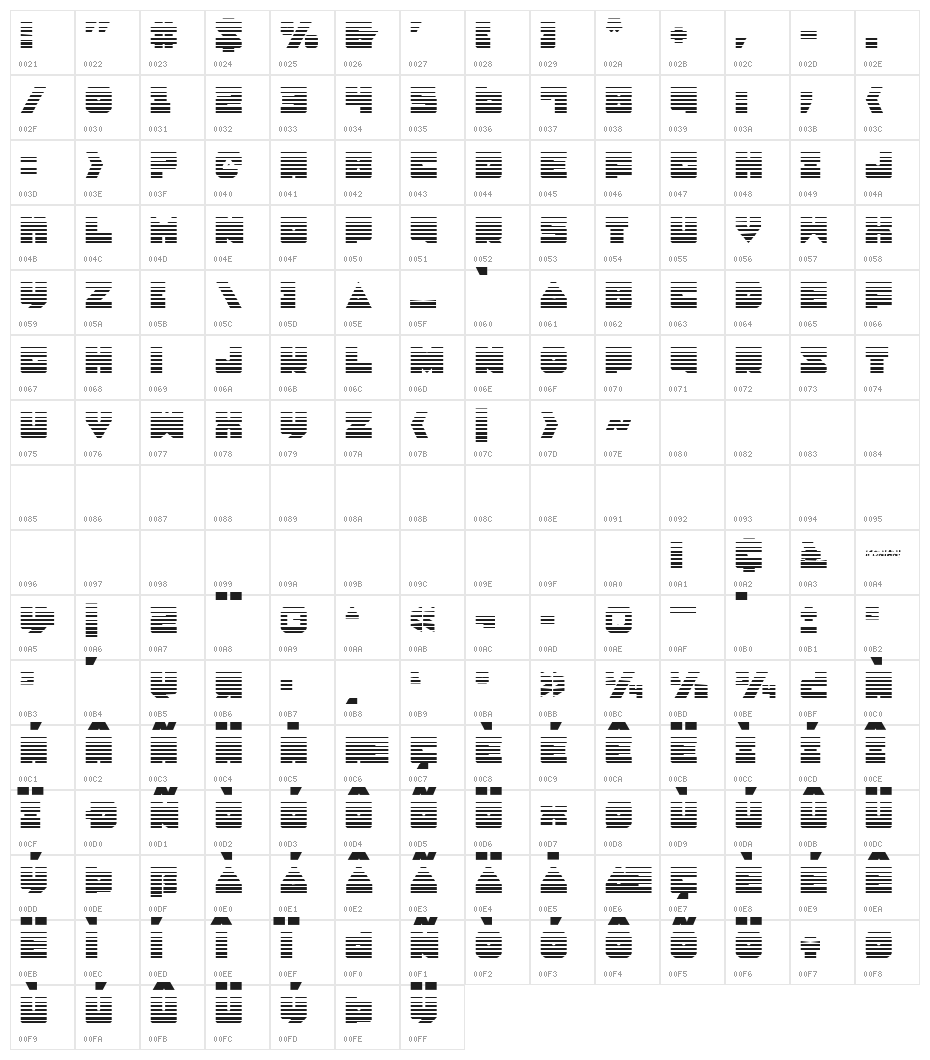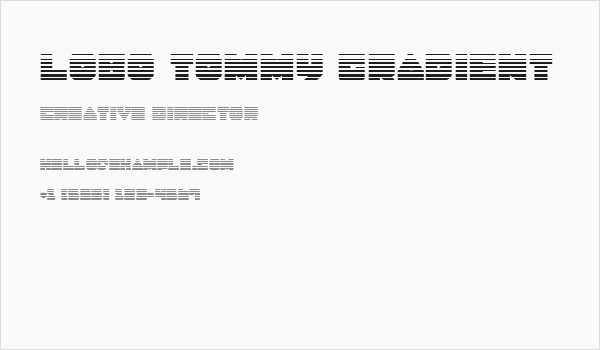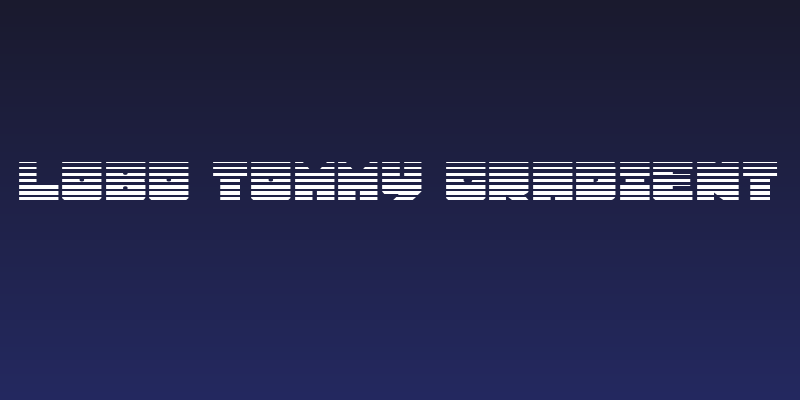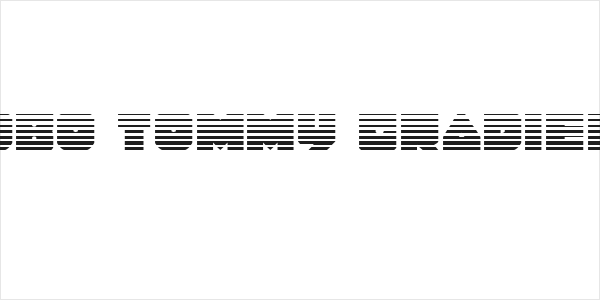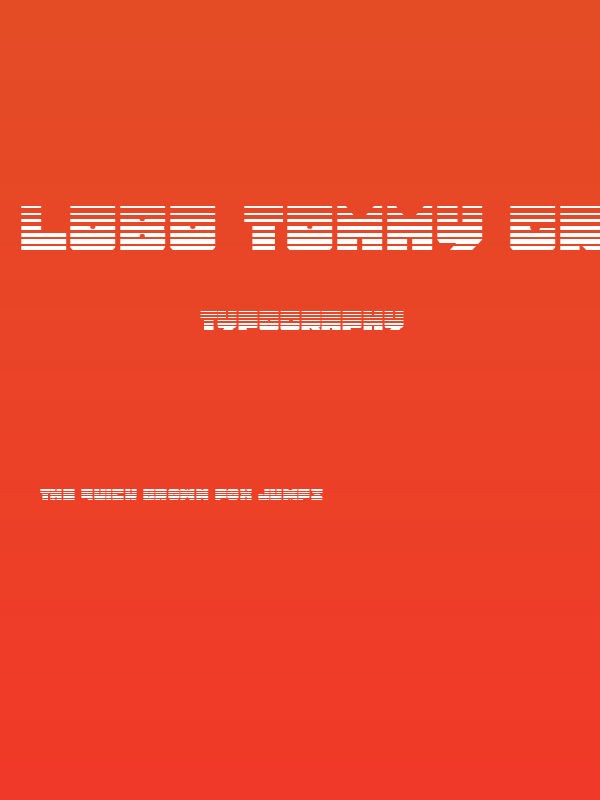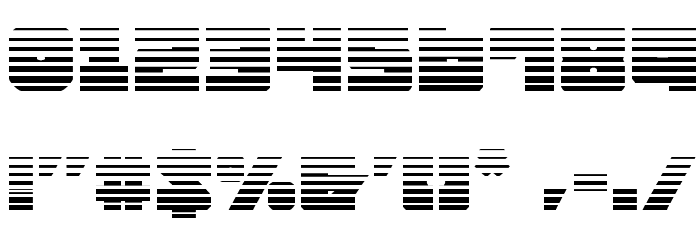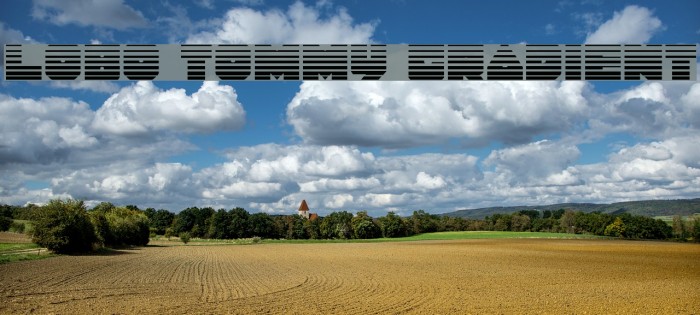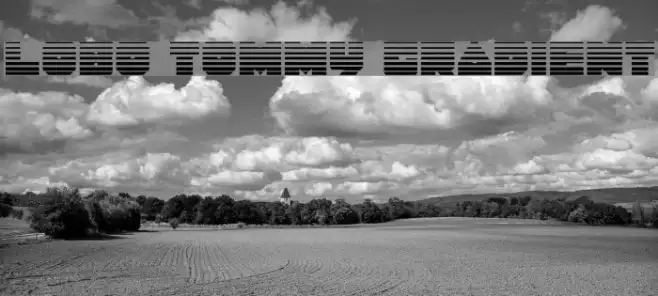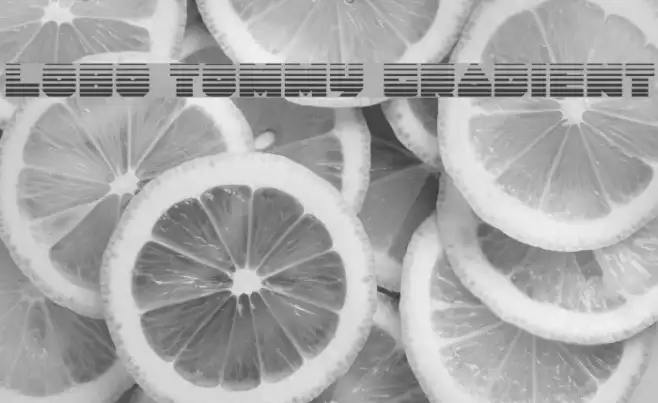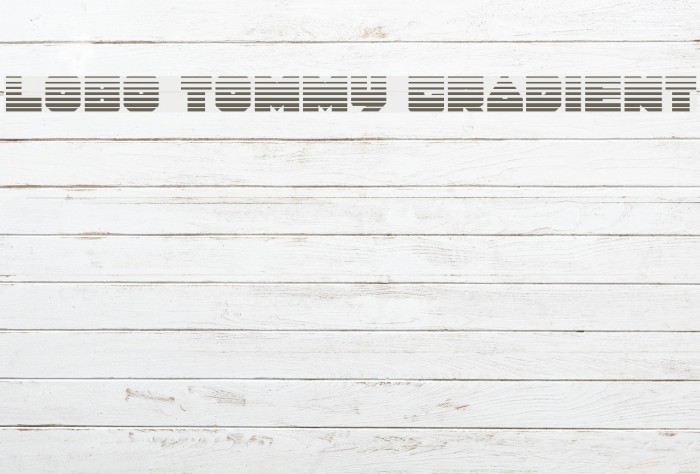
Lobo Tommy Gradient Font
Lobo Tommy Gradient Description
This font features a unique, modern design characterized by horizontal stripes that create a gradient effect across each character. The bold, geometric shapes are consistent throughout the uppercase and lowercase letters, as well as the numbers and special characters. The striped pattern gives a sense of movement and energy, making it stand out in any design. The font's structure is solid and impactful, with each character maintaining a uniform width and height, contributing to its cohesive appearance. The overall style is decorative and futuristic, suitable for projects that require a bold and eye-catching typeface.
| Proposed Projects | Ideal for branding, posters, album covers, and any design needing a striking, modern typeface. |